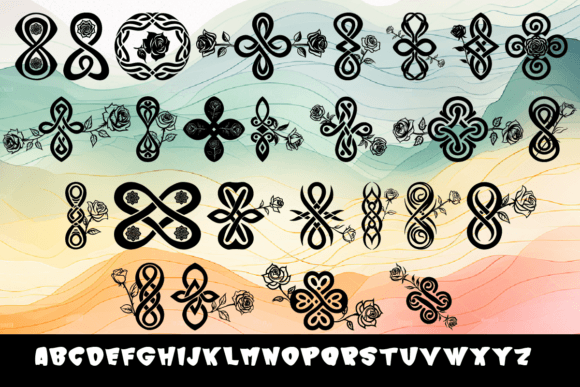
Introduction to Rose Infinity Font
Have you ever found yourself scrolling through design inspiration boards, feeling stuck and yearning for something new and exciting to elevate your creative project? I know I have. One of the most significant challenges designers face is finding the perfect design resource to add that extra oomph to our work. This is where the stunning Rose Infinity Font comes in – a game-changing digital collection that’s about to revolutionize the way you approach design.
With its exquisite rose motifs and elegant aesthetic, this unique font set is the perfect addition to any designer’s toolkit. Whether you’re working on an invitation, stationery, logo, or any other creative project, the Rose Infinity Font is sure to bring a touch of sophistication and class. And the best part? It’s available for free download in both OTF and TTF formats, ensuring seamless compatibility with your favorite design software.
Key Features of Rose Infinity Font
- High-quality design resource for creative projects: The Rose Infinity Font is a premium font designed for use in various creative projects, including graphic design, digital art, and more.
- High-resolution design: This font is designed at a high resolution, making it perfect for use in large-scale designs, such as billboards and posters.
- Unique, hand-drawn design: The Rose Infinity Font features a unique, hand-drawn design that adds a touch of elegance and sophistication to any creative project.
- Large character set: The font includes a large character set, including uppercase and lowercase letters, numbers, and punctuation marks, making it a versatile design resource.
Honest Review: Rose Infinity Font
As a designer, I’m always on the lookout for high-quality design resources that can elevate my creative projects. The Rose Infinity Font has been a welcome addition to my design arsenal.
- ✨ The font’s elegant, flowing lines are perfect for adding a touch of sophistication to any design project.
- ✨ The transparent background option allows for seamless integration with any background image or color.
- ⚠️ The font is only available in a few weights, which may limit its versatility in certain design scenarios.
- ⚠️ The font’s complexity can make it difficult to use in very small sizes or for simple text-based designs.
Overall, I’m impressed with the Rose Infinity Font’s high quality and versatility. While it may not be suitable for every design project, it’s an excellent choice for designers looking to add a touch of elegance and sophistication to their work.
How to Use Rose Infinity Font
The Rose Infinity Font is a unique and versatile design resource that can be used in a variety of creative projects. Its high-quality, intricate design makes it perfect for adding a touch of elegance to your work.
Tips for Getting the Most Out of Rose Infinity Font
Experiment with different font sizes and styles to create visually appealing text effects. Combine the Rose Infinity Font with other design elements to add depth and interest to your work.
The Rose Infinity Font is ideal for:
- High-end branding and marketing materials
- Luxury product packaging and labels